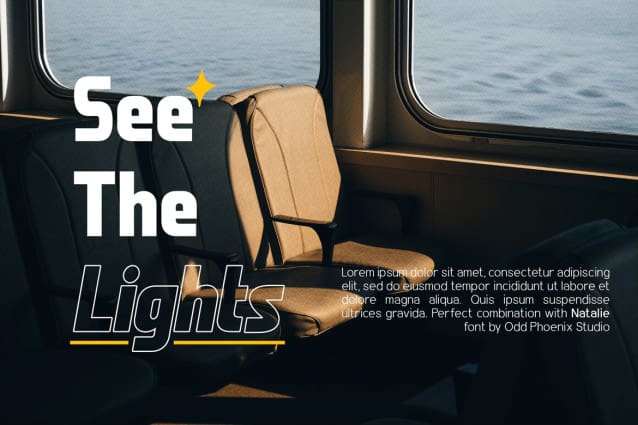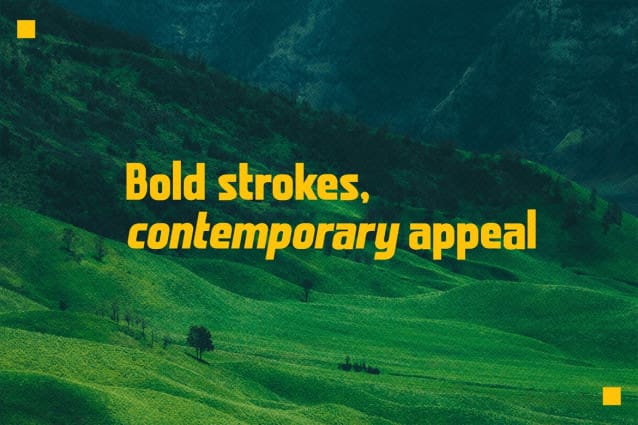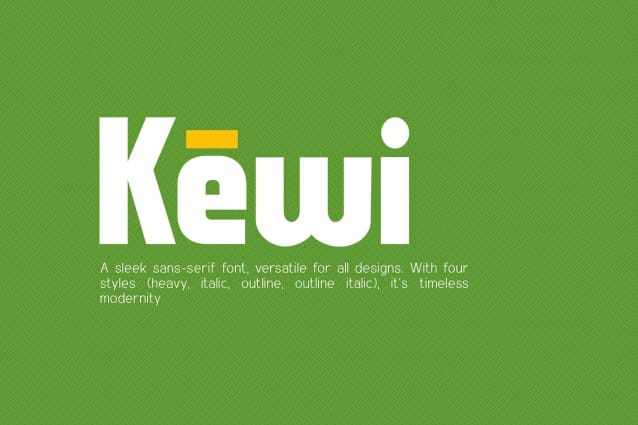
Kewi Font
Kewi Font, a sleek sans-serif font, versatile for all designs. With four styles (heavy, italic, outline, outline italic), it’s timeless modernity